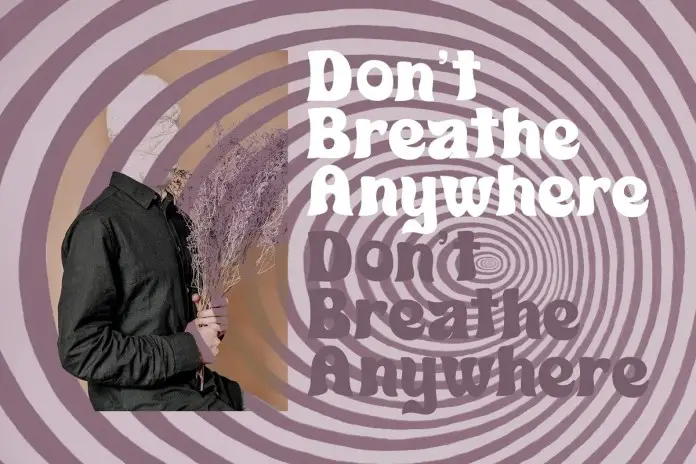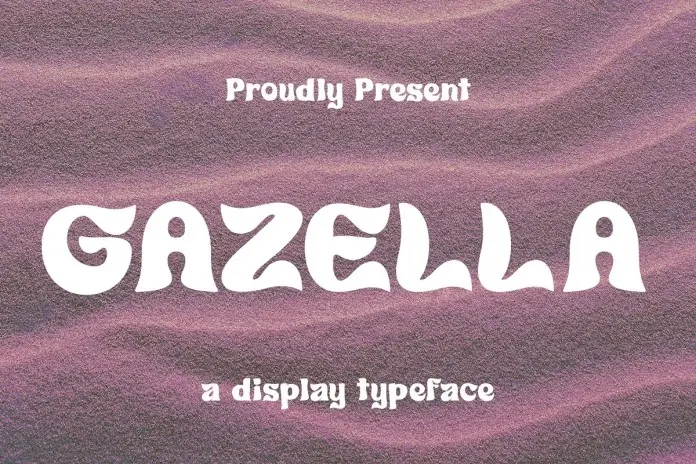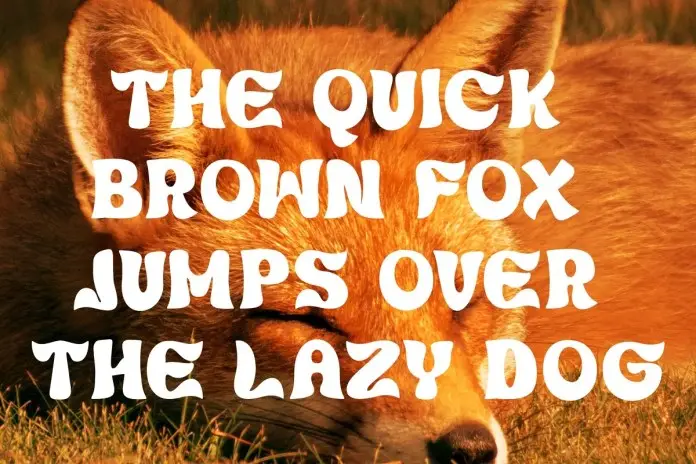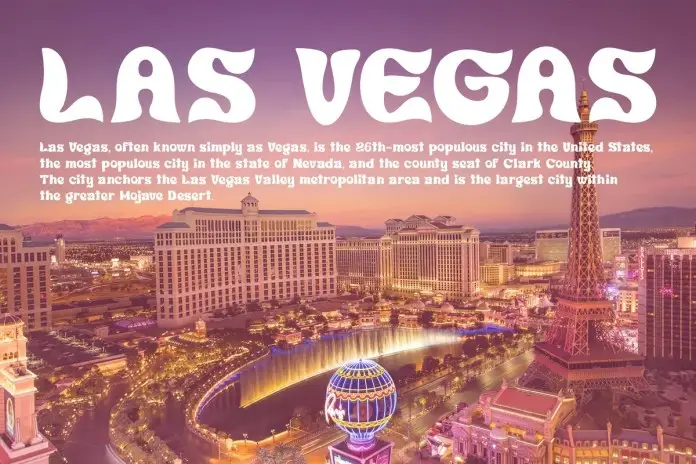
Gazella Display Font
The Gazella Display Font is a striking typeface designed to make a bold statement in any project. With its unique character shapes and elegant curves, this font is perfect for branding, logos, and eye-catching headlines.
• Stylish display typeface
• Multiple stylistic alternates for customization
This font is ideal for creating standout visuals in print and digital media. Use it for posters, social media graphics, and branding materials to capture attention effectively.